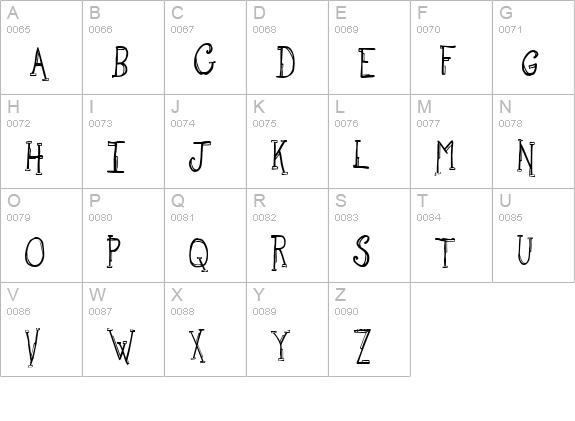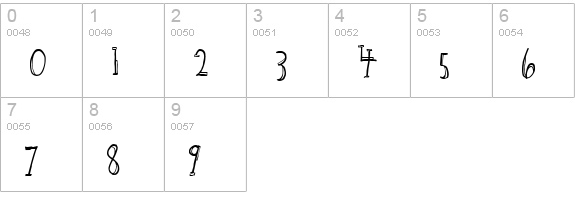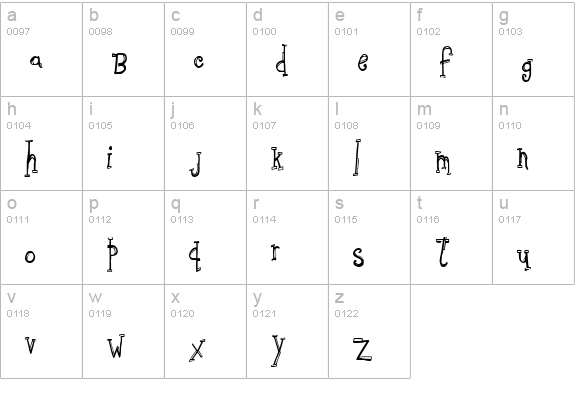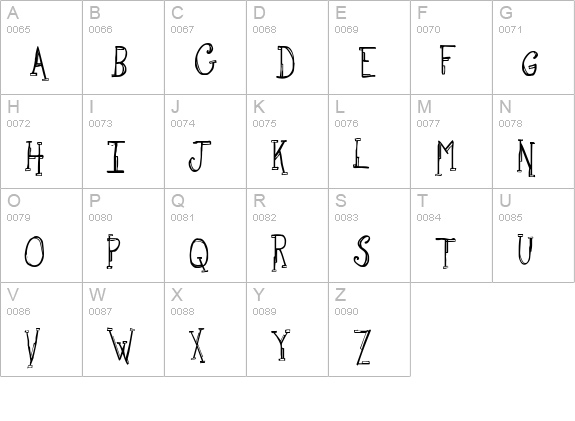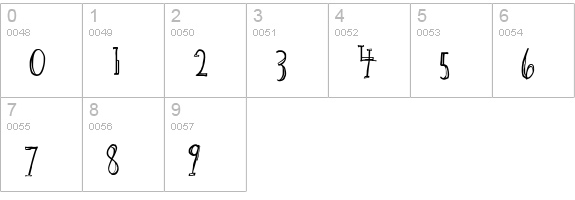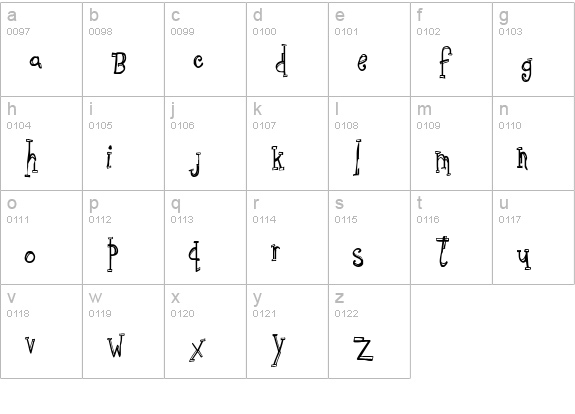
Sketchbook Font Details
Introducing Sketchbook, a stunning font that effortlessly combines creativity and elegance. Designed for artists, designers, and anyone seeking a touch of artistic flair in their projects, Sketchbook is the perfect choice to bring your ideas to life. With its unique hand-drawn style, Sketchbook captures the essence of the creative process, allowing your designs to stand out from the crowd. Each letter is carefully crafted to resemble the strokes of a skilled artist's sketch, giving your text a sense of authenticity and originality. But what sets Sketchbook apart is that it is not only visually captivating, but it is also free. Yes, you read that right - this incredible font is freely available to download at FontsMarket.com. Now you can add a touch of artistic charm to your projects without breaking the bank. Whether you're designing a logo, creating eye-catching posters, or adding a personal touch to your social media graphics, Sketchbook is the perfect companion. Its versatility allows it to seamlessly blend into various design styles, from modern and minimalist to vintage and whimsical. So why wait? Unlock your creative potential with Sketchbook and let your imagination run wild. Download this incredible font for free at FontsMarket.com and add a unique touch to your designs today.